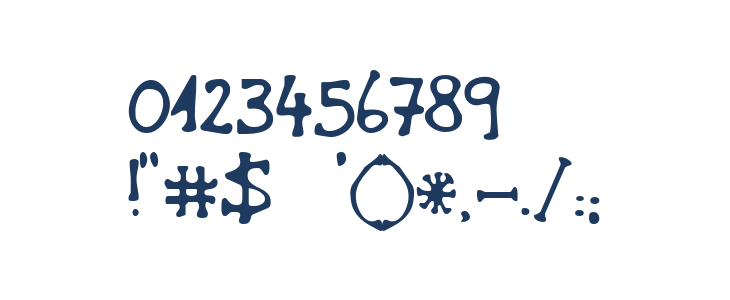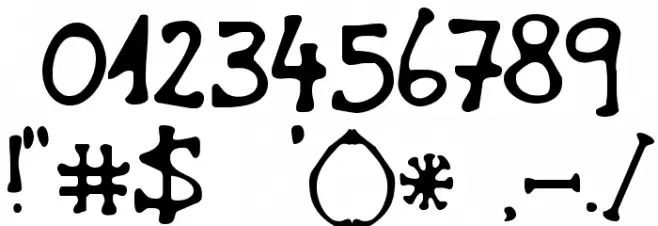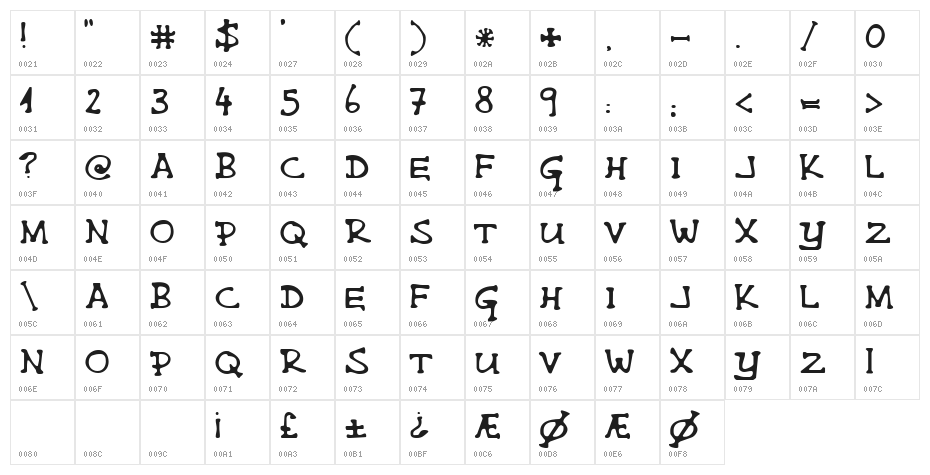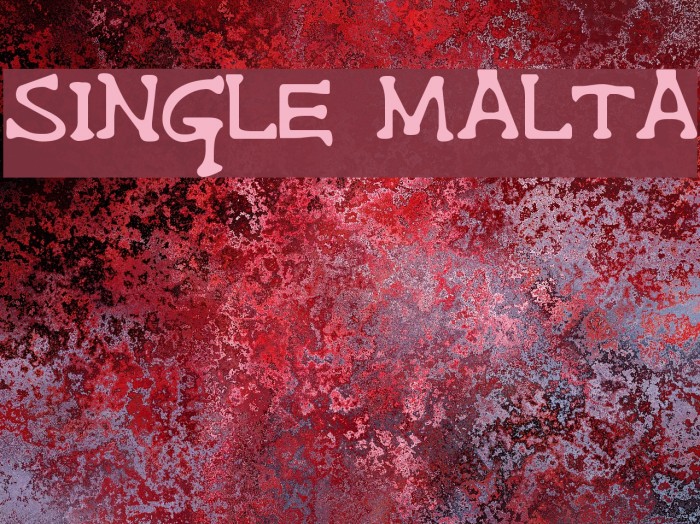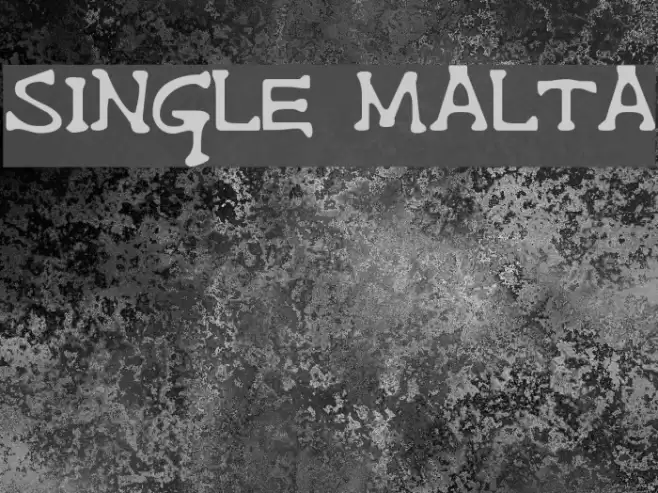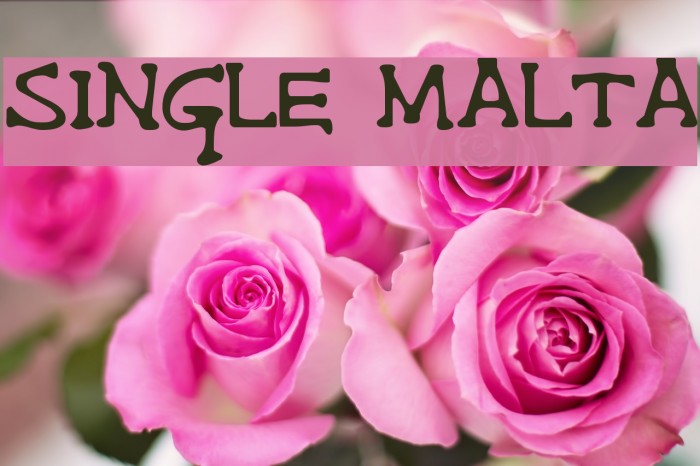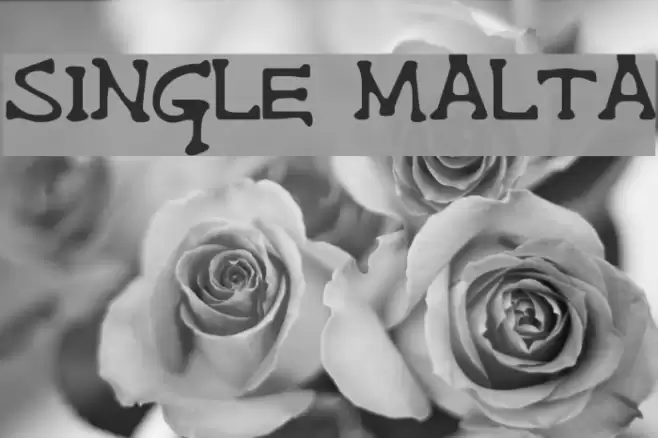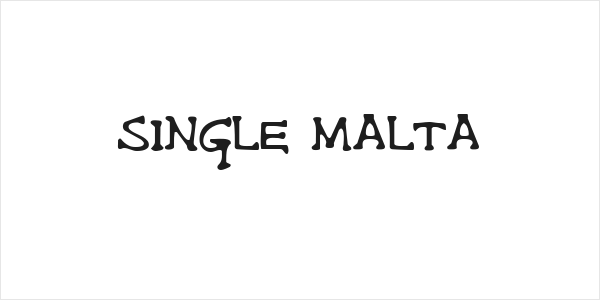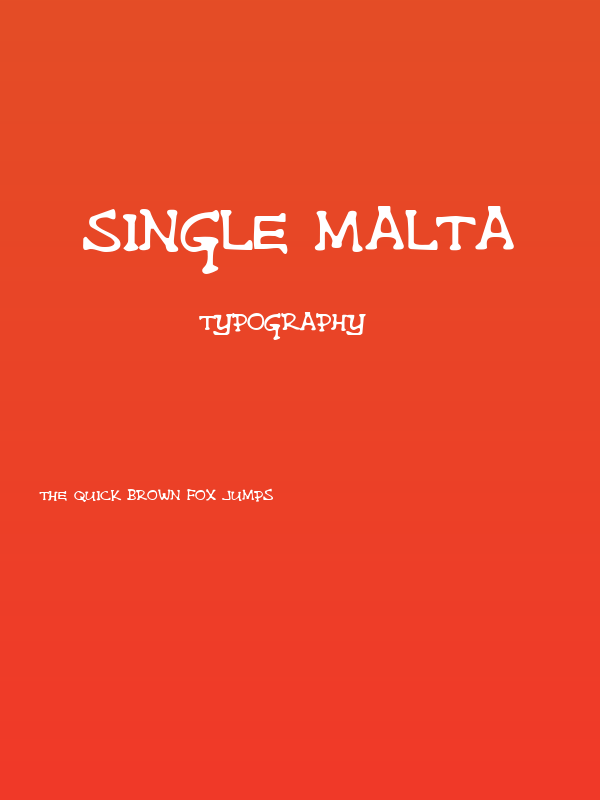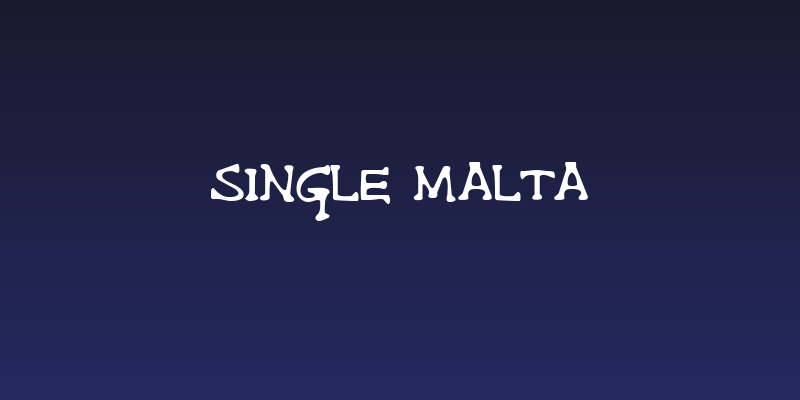
Single Malta Font
Single Malta Description
This font features a playful and whimsical design, characterized by its irregular and slightly distorted letterforms. The strokes are bold and uneven, giving each character a unique and hand-drawn appearance. The uppercase and lowercase letters maintain a consistent style, with exaggerated curves and varying stroke widths that add to the font's quirky charm. The numbers and special characters follow the same design principles, ensuring a cohesive look across all elements. This font's distinctive style makes it suitable for creative and informal projects, where a touch of personality and fun is desired.
| Overall Style | Whimsical, Playful |
| Proposed Projects | Ideal for children's books, greeting cards, playful branding, and creative posters. |